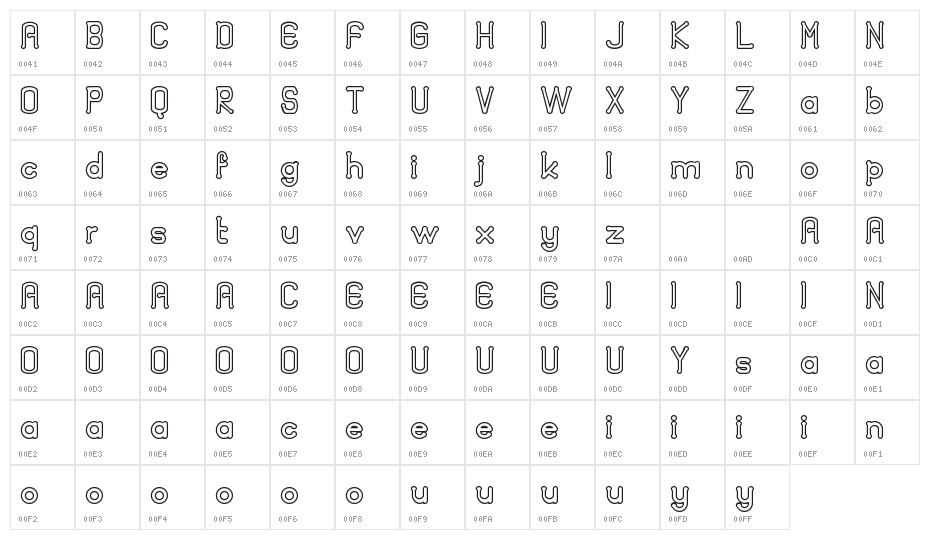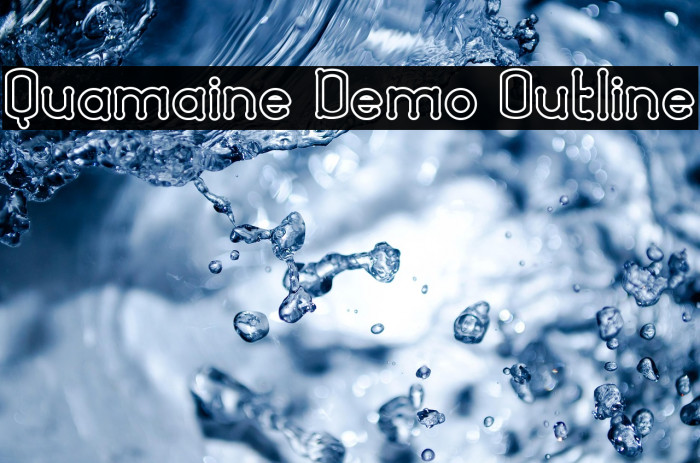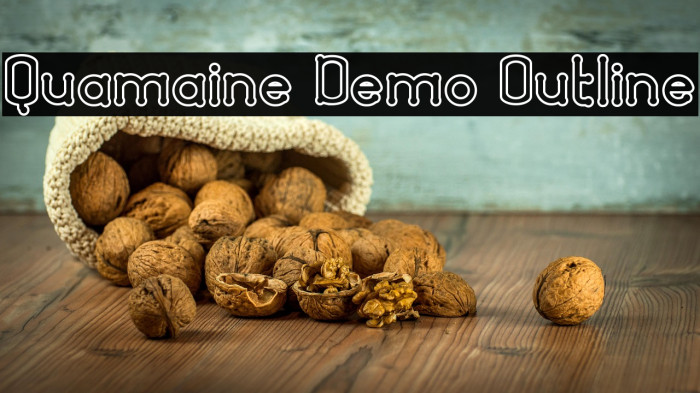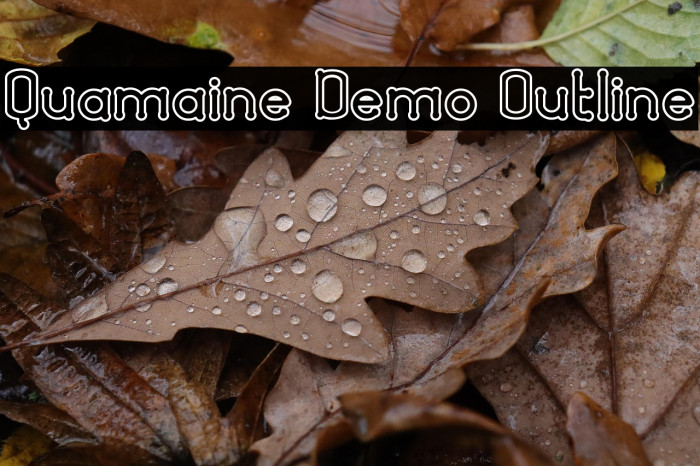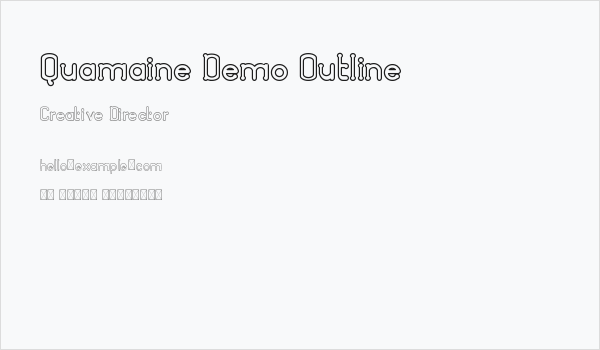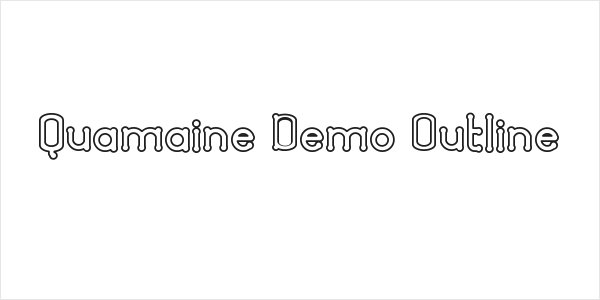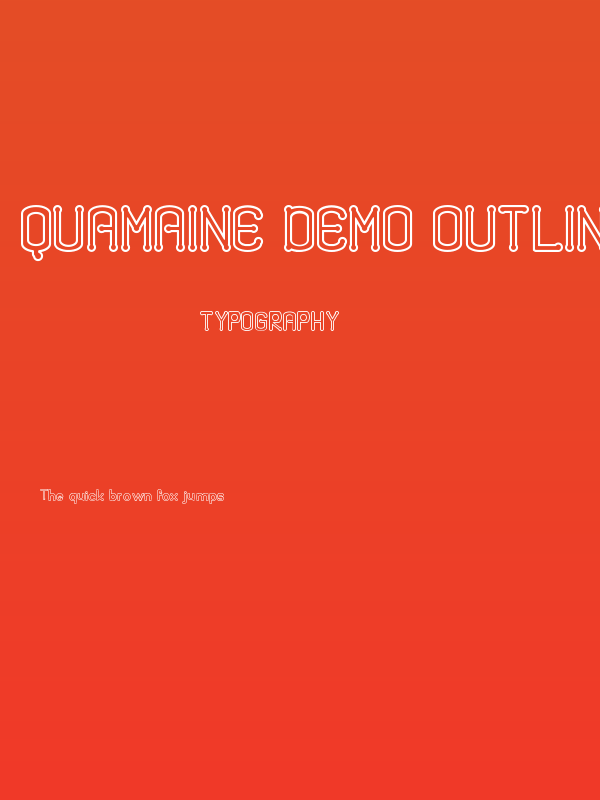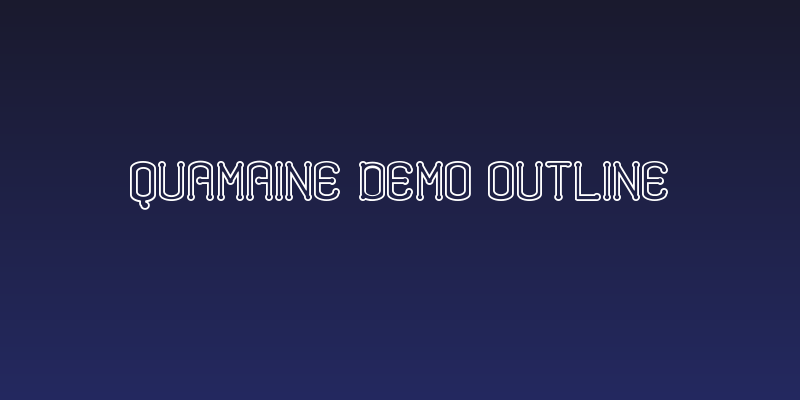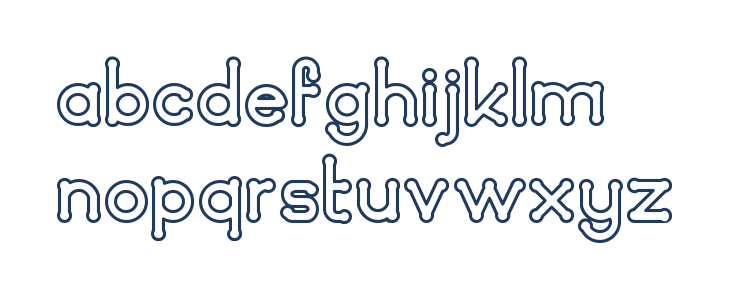
Quamaine Demo Outline Font
Quamaine Demo Outline Description
This font features a distinctive outline style that gives it a bold and eye-catching appearance. The characters are uppercase and lowercase letters, along with numbers and a selection of special characters. Each letter is crafted with a consistent outline thickness, creating a uniform look across the entire typeface. The design is modern and playful, making it suitable for projects that require a touch of creativity and flair. The font's outline nature allows for versatility in design, as it can be filled with colors or patterns to enhance its visual impact. The spacing between characters is normal, ensuring readability while maintaining its decorative appeal.